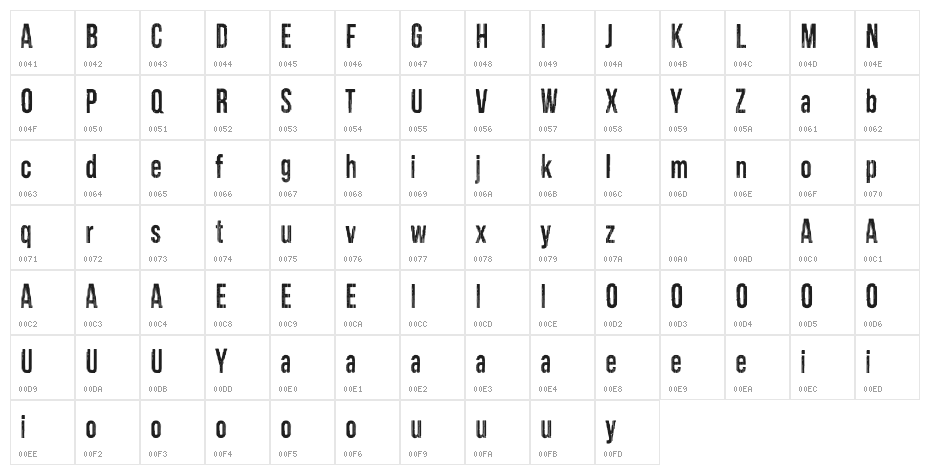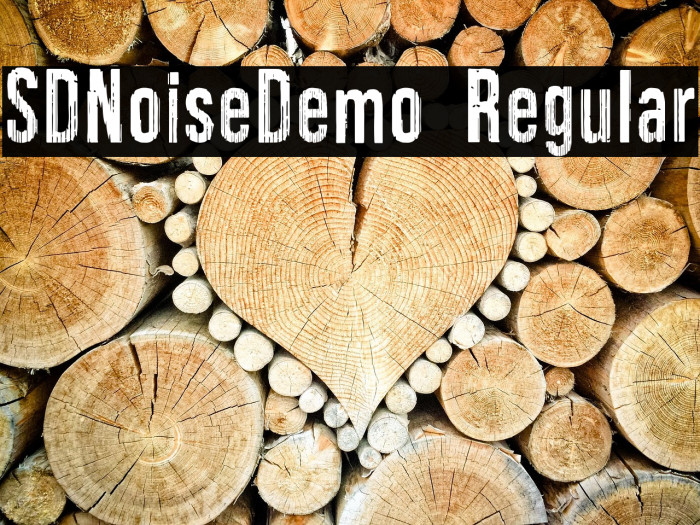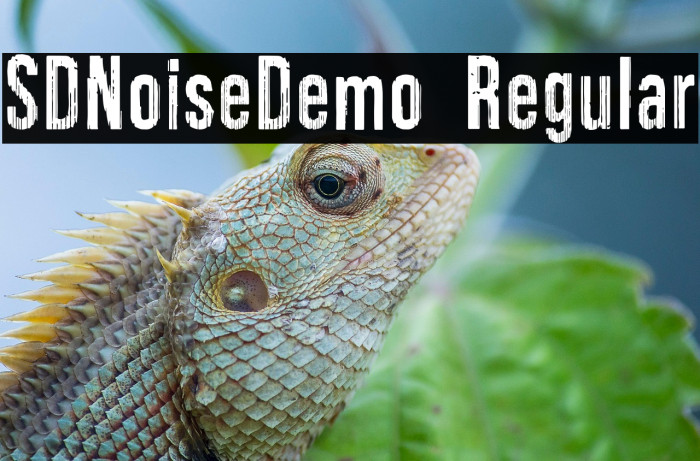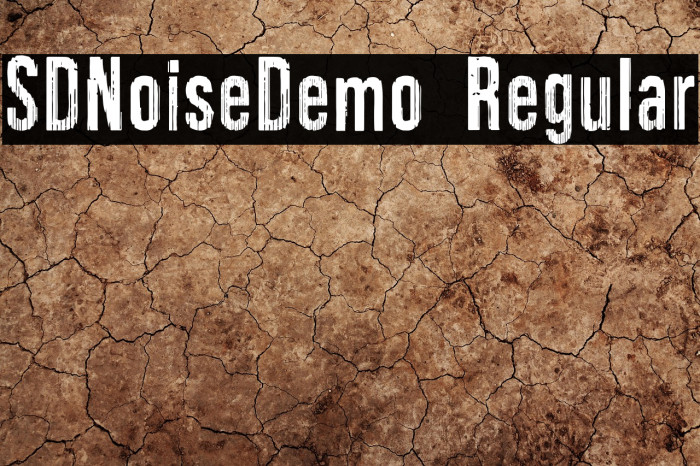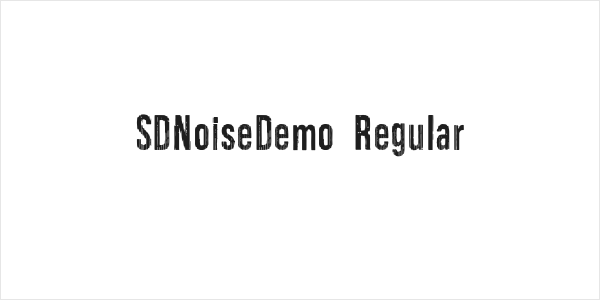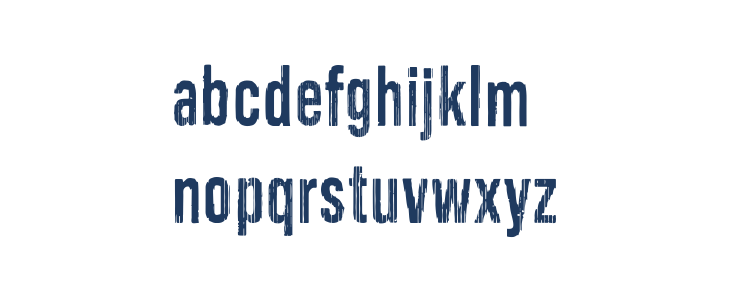
SDNoiseDemo Regular Font
SDNoiseDemo Regular Description
This font features a distressed, textured appearance that gives it a unique, grunge-like style. The characters are bold and uppercase, with a rough, uneven texture that suggests wear and tear, adding a sense of depth and character. The lowercase letters maintain the same distressed aesthetic, providing a cohesive look across different text cases. The numbers and special characters also share this rugged texture, making the font suitable for projects that require a bold, eye-catching design. The overall style is both modern and vintage, making it versatile for various creative applications.
| Overall Style | Modern, Vintage |
| Proposed Projects | Ideal for posters, album covers, branding, and any design needing a bold, textured look. |